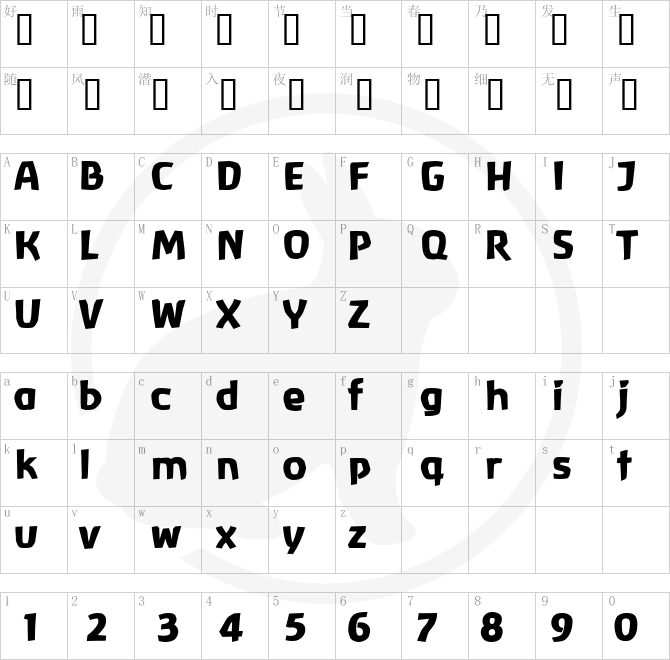
- Font Name:Baar Antropos Display
Baar-Antropos-Display.ttf is a very beautiful artistic font, Baar-Antropos-Display.ttf is widely used in the design and printing of various books and pictures,Baar-Antropos-Display.ttf has a strong visual impact,Baar-Antropos-Display.ttf is a commonly used font in newspapers, magazines and books, and is used in posters, e-commerce Poster design, store design, logo design, font design and other fields.Baar-Antropos-Display.